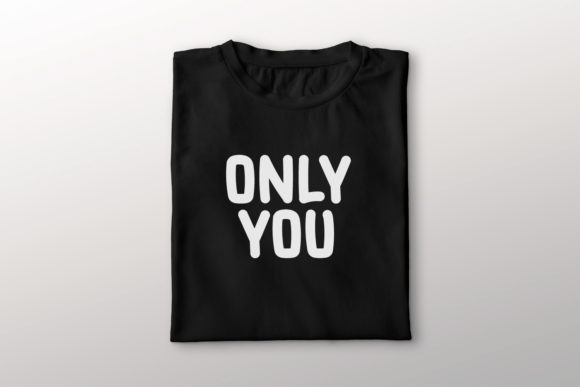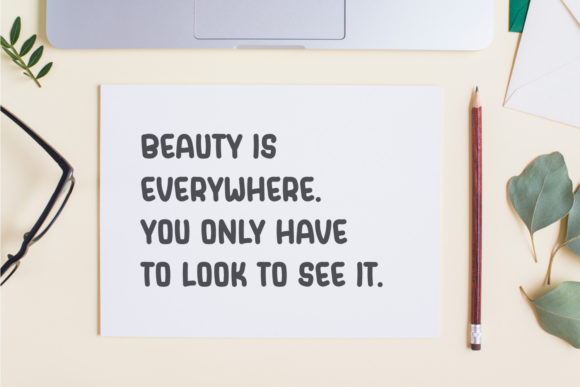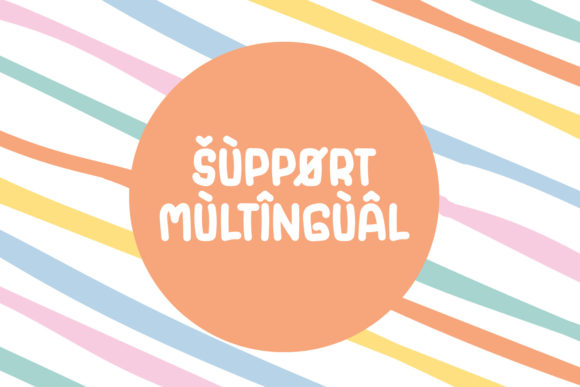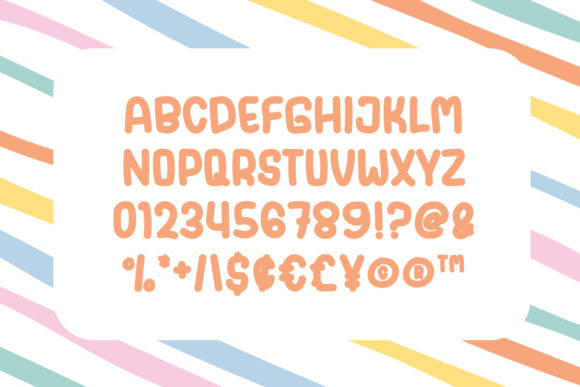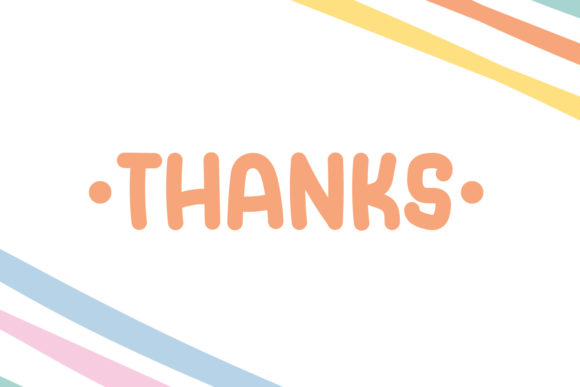
Discover the Charm of Caroline Font: A Cute and Playful Display Font
Are you looking for a font that adds a touch of playfulness and cuteness to your designs? Look no further than Caroline Font! This delightful display font is perfect for cartoon-related designs, children’s games, and any creation that requires a lovely touch. In this article, we’ll dive into the world of Caroline Font and explore its features, uses, and benefits for designers and crafters.
What is Caroline Font?
Caroline Font is a modern display font designed to bring a sense of fun and playfulness to your designs. Its cute and charming appearance makes it an excellent choice for projects that require a lighthearted and youthful feel. The font features rounded edges, soft curves, and a whimsical flair that will make your designs stand out.
Key Features of Caroline Font
- Cute and Playful Design: Caroline Font boasts a unique and adorable design that’s perfect for creating eye-catching headlines, titles, and captions.
- Display Font: This font is specifically designed for display purposes, making it ideal for large text sizes and attention-grabbing applications.
- Cartoon and Children’s Themes: Caroline Font is a natural fit for cartoon-related designs, children’s games, and educational materials.
- Multilingual Support: The font supports multiple languages, making it a versatile choice for designers working on international projects.
Uses of Caroline Font
Caroline Font is a versatile font that can be used in a variety of design projects, including:
- Cartoon and Animation Designs: Add a playful touch to your cartoon characters, titles, and animations.
- Children’s Games and Education: Create engaging and interactive designs for kids, including games, puzzles, and educational materials.
- Branding and Packaging: Use Caroline Font to create adorable and eye-catching logos, labels, and packaging designs.
- Social Media and Web Design: Add a touch of whimsy to your social media graphics, website headers, and blog posts.
Benefits of Using Caroline Font
So why choose Caroline Font for your design projects? Here are some benefits:
- Unique and Eye-Catching: Caroline Font helps you create designs that stand out from the crowd and grab attention.
- Easy to Read: The font’s clear and simple design ensures that your text is easy to read, even at large sizes.
- Time-Saving: With Caroline Font, you can quickly create professional-looking designs without spending hours on typography.
Tips for Using Caroline Font
To get the most out of Caroline Font, follow these tips:
- Pair with Other Fonts: Combine Caroline Font with other fonts to create visually appealing contrast and hierarchy.
- Experiment with Colors: Try out different color schemes to match your brand or design theme.
- Use for Headlines and Titles: Caroline Font is perfect for headlines and titles, but you can also use it for body text in smaller sizes.